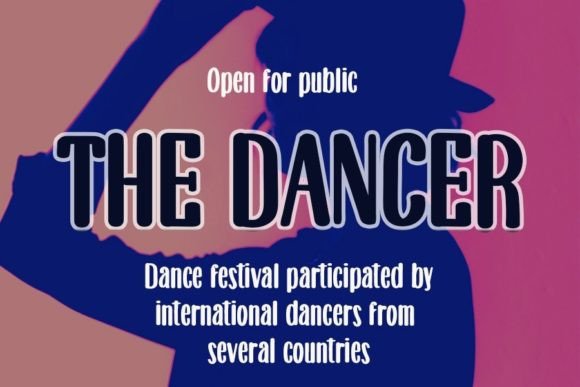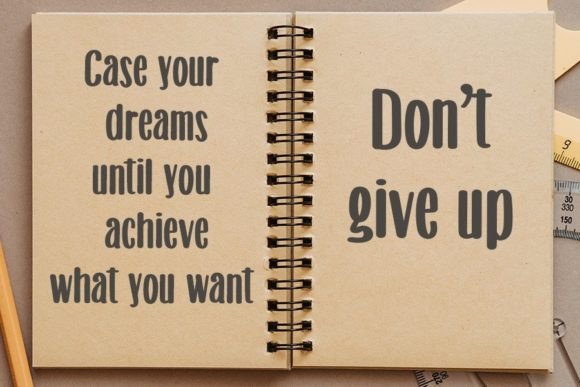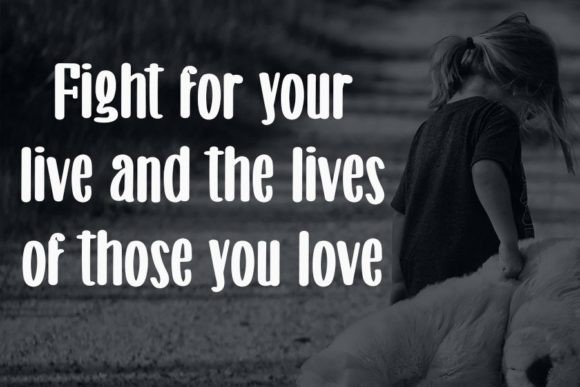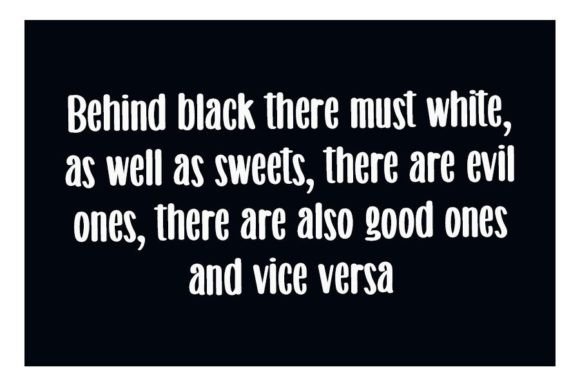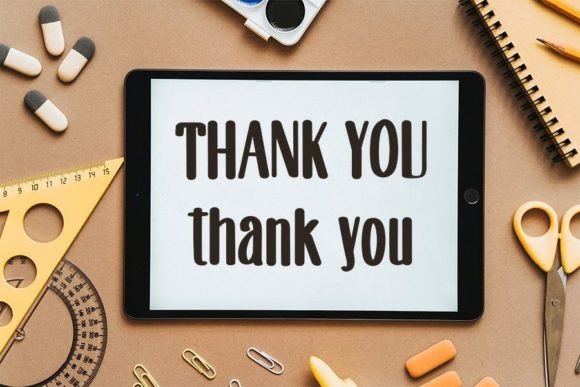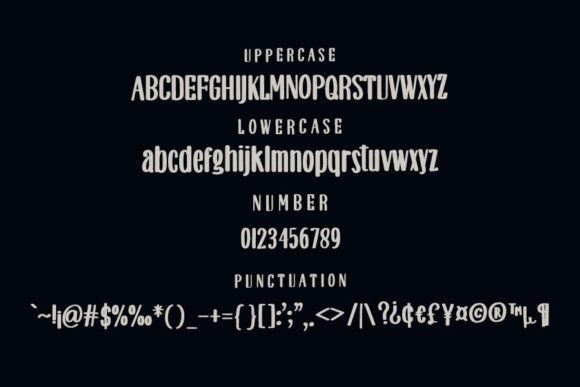
Dreaming Font
About Dreaming Font
“DREAMING” is a friendly handwritten font meticulously crafted to become a beloved choice. It seamlessly blends classy calligraphic influences with a contemporary and fresh feel, making it a versatile option for a wide range of creative projects. By incorporating “DREAMING” into your designs, you have the opportunity to elevate them and make them truly outstanding.
The font’s friendly and approachable nature creates a warm and inviting atmosphere, making it suitable for various applications. Whether you’re working on branding, invitations, social media posts, greeting cards, quotes, or any other project, “DREAMING” adds a touch of charm and creativity. Its carefully designed letterforms convey a sense of elegance while maintaining a modern and youthful vibe, making it appealing to a diverse audience.
Incorporating “DREAMING” into your creative projects allows you to infuse them with a unique personality. Its handwritten style brings authenticity and character to your designs, making them stand out in a sea of standard fonts. The font’s versatility makes it easy to adapt to different design themes and concepts, making it a favorite choice among designers looking for a font that combines sophistication with a friendly and contemporary appeal.
Embrace the friendly and classy charm of “DREAMING” and notice how it transforms your creative projects. Its ability to maintain a balance between tradition and modernity enables you to create outstanding designs that leave a lasting impression. With “DREAMING,” your projects are sure to shine, capturing the attention of your audience with its unique and approachable handwritten aesthetic.